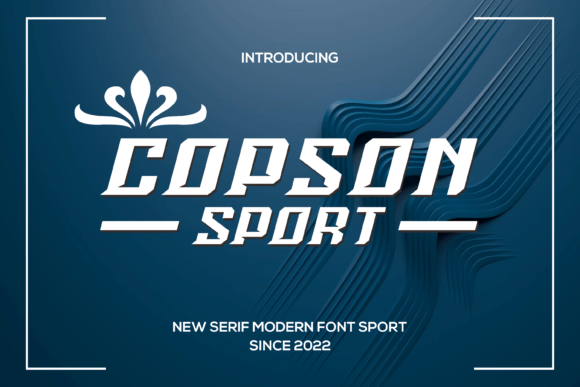
The Ultimate Guide to Copsonsport Font: Elevate Your Sporty Designs
I’ll never forget the time I was working on a sports branding project, and my client asked me to create a bold, eye-catching logo that screamed “energy” and “dynamism.” I scoured the internet for the perfect font, but nothing seemed quite right – until I stumbled upon Copsonsport. This cool and modern display font has since become a staple in my design toolkit, and I’m excited to share its awesomeness with you! 😊
An Honest Review of Copsonsport Font
So, what makes Copsonsport so special? Let’s dive into the good stuff! 🤩
- ✨ Unique and modern design: Copsonsport boasts a fresh, sporty vibe that’s perfect for headlines, titles, and logos.
- ✅ Highly legible: Even at smaller sizes, Copsonsport remains clear and easy to read, making it a great choice for body text.
- 💥 Attention-grabbing: This font is designed to make a statement, and it certainly delivers – perfect for creating bold, eye-catching designs.
Of course, no font is perfect, and Copsonsport has a few minor quirks to keep in mind:
- 🤔 Limited use in formal contexts: Due to its sporty, casual vibe, Copsonsport might not be the best fit for formal or traditional designs.
- ⚠️ Glyph support: While Copsonsport comes with a range of glyphs and OpenType features, some users might find the selection a bit limited.
One of the standout features of Copsonsport is its range of OpenType features and glyphs. These allow you to customize your text and add unique touches to your designs. For example, you can:
- Access stylistic alternates to create varied, dynamic text.
- Use glyphs to add decorative elements, such as icons or swashes.
The Backstory Behind Copsonsport Font
Legend has it that Copsonsport was created by a team of designers who wanted to craft a font that embodied the spirit of sports and competition. With its bold, dynamic design, Copsonsport was born – and it’s been a game-changer for designers ever since!
| Font Name | Copsonsport Font |
| What makes Copsonsport font unique? | Copsonsport boasts a modern, sporty design that’s perfect for headlines, titles, and logos. |
| Is Copsonsport font suitable for body text? | While Copsonsport is primarily designed for display use, it’s also highly legible and can be used for body text in smaller sizes. |